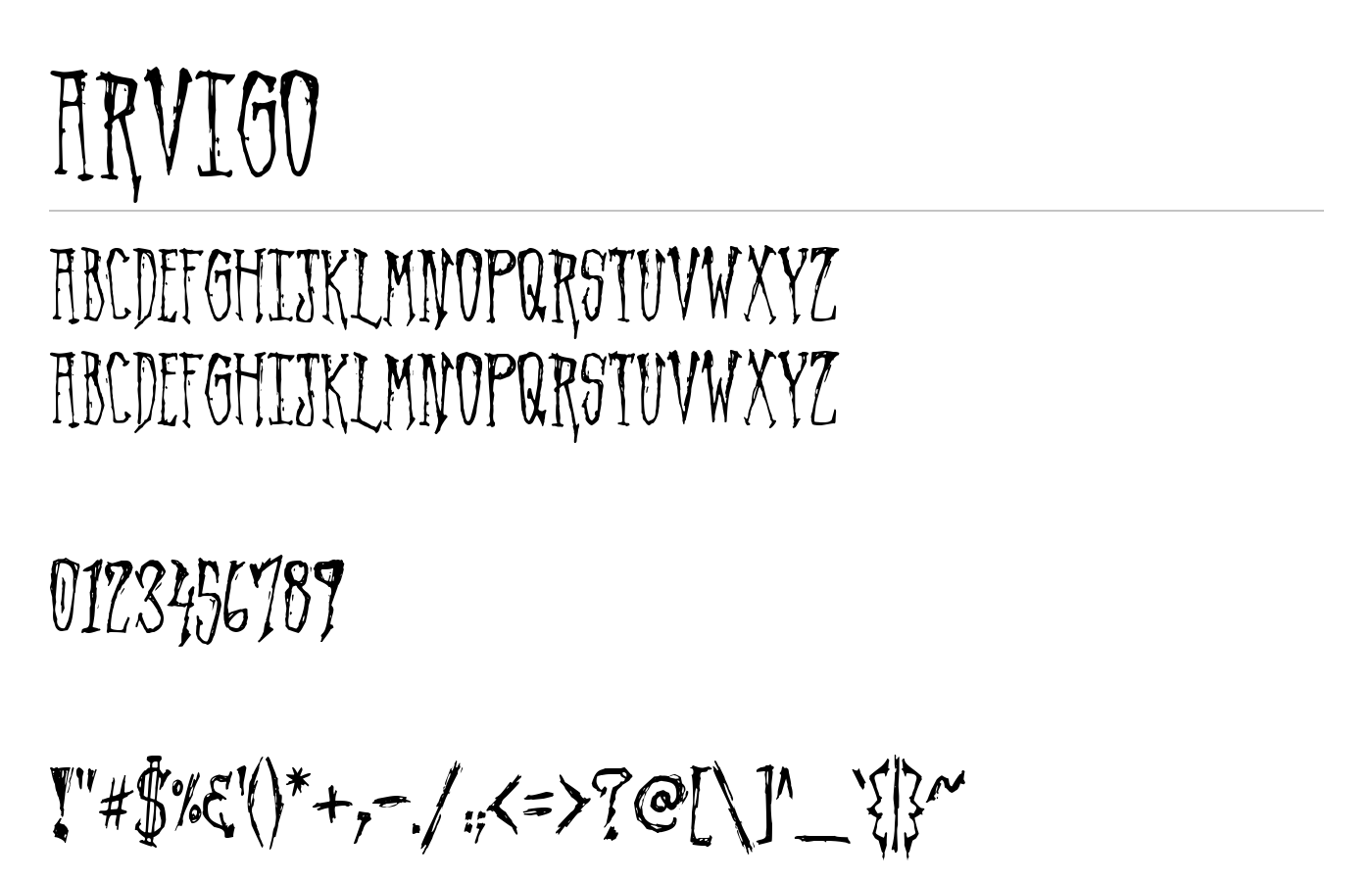
Arvigo is a decorative, narrow serif font with a hand-drawn, slightly eerie feel created by its uneven, spiky strokes and distressed texture. Its tall, condensed letterforms and unique character shapes make it ideal for expressive, eye-catching designs that need a spooky or vintage horror vibe. This font works best in headlines, posters, or themed branding where a bold, unsettling atmosphere is desired.
Arvigo Font
About Arvigo Font